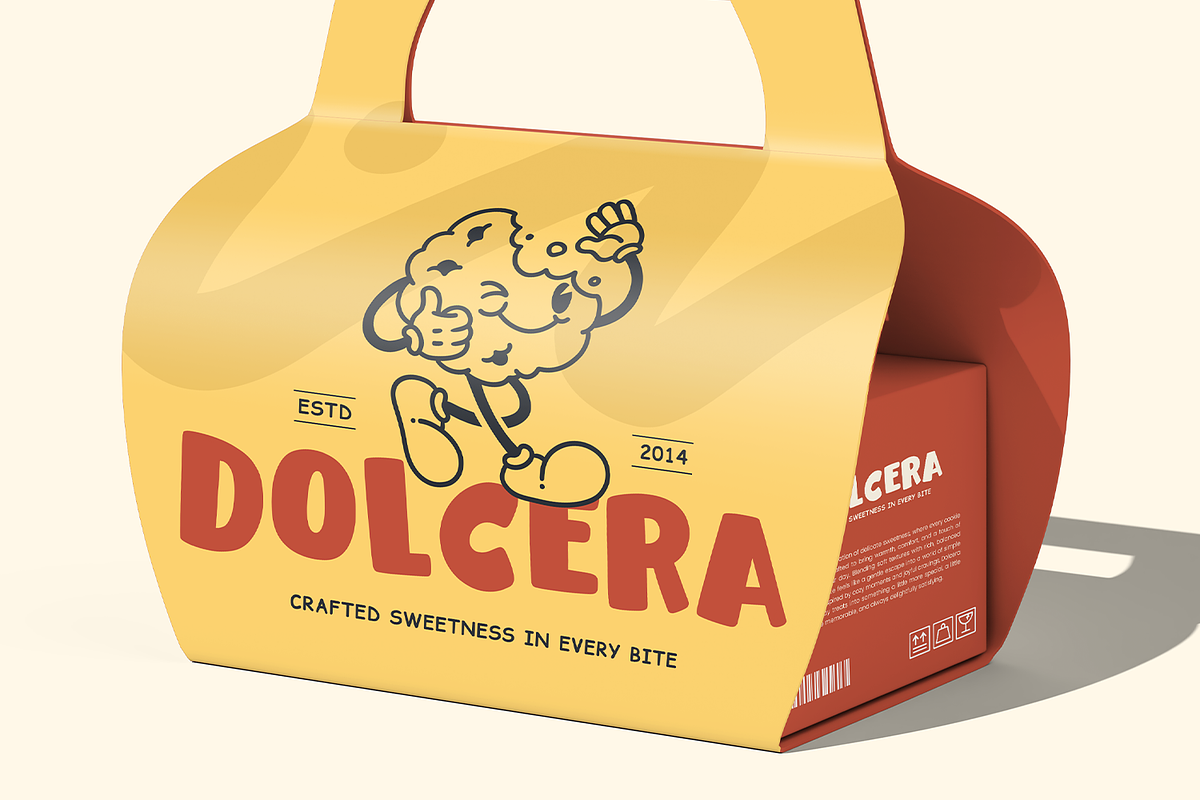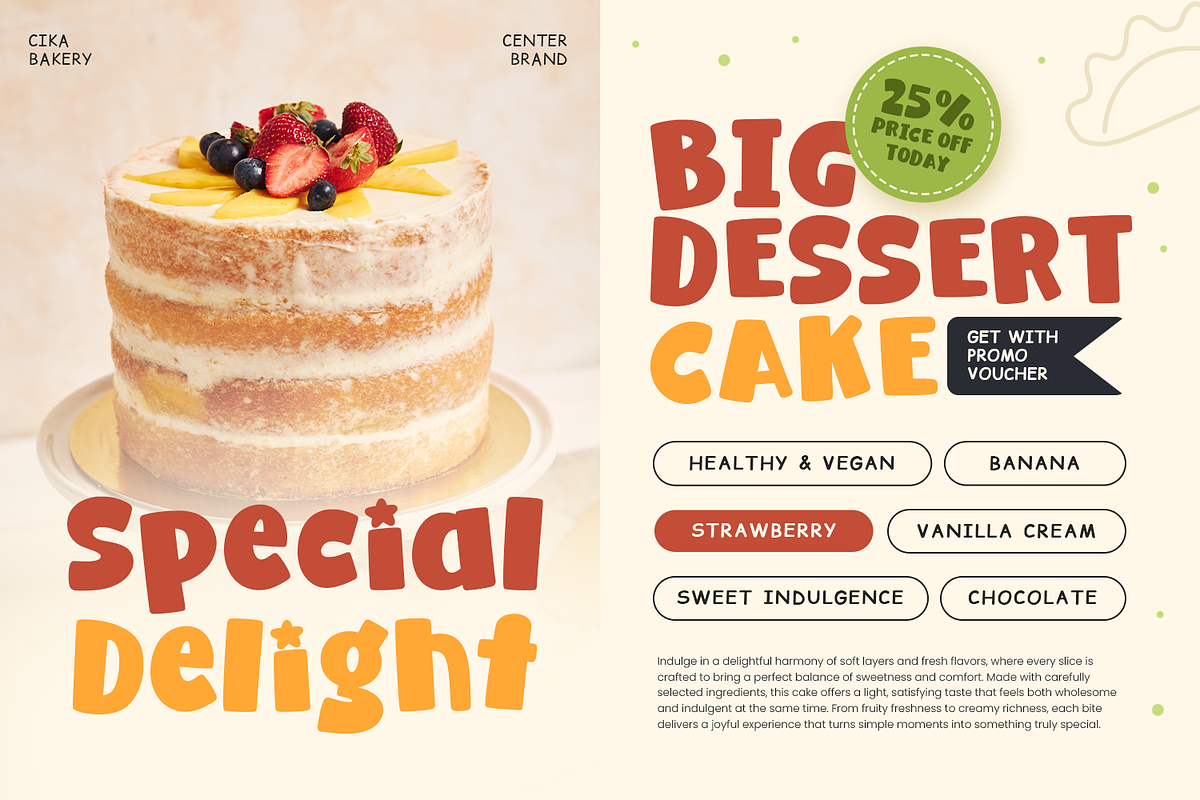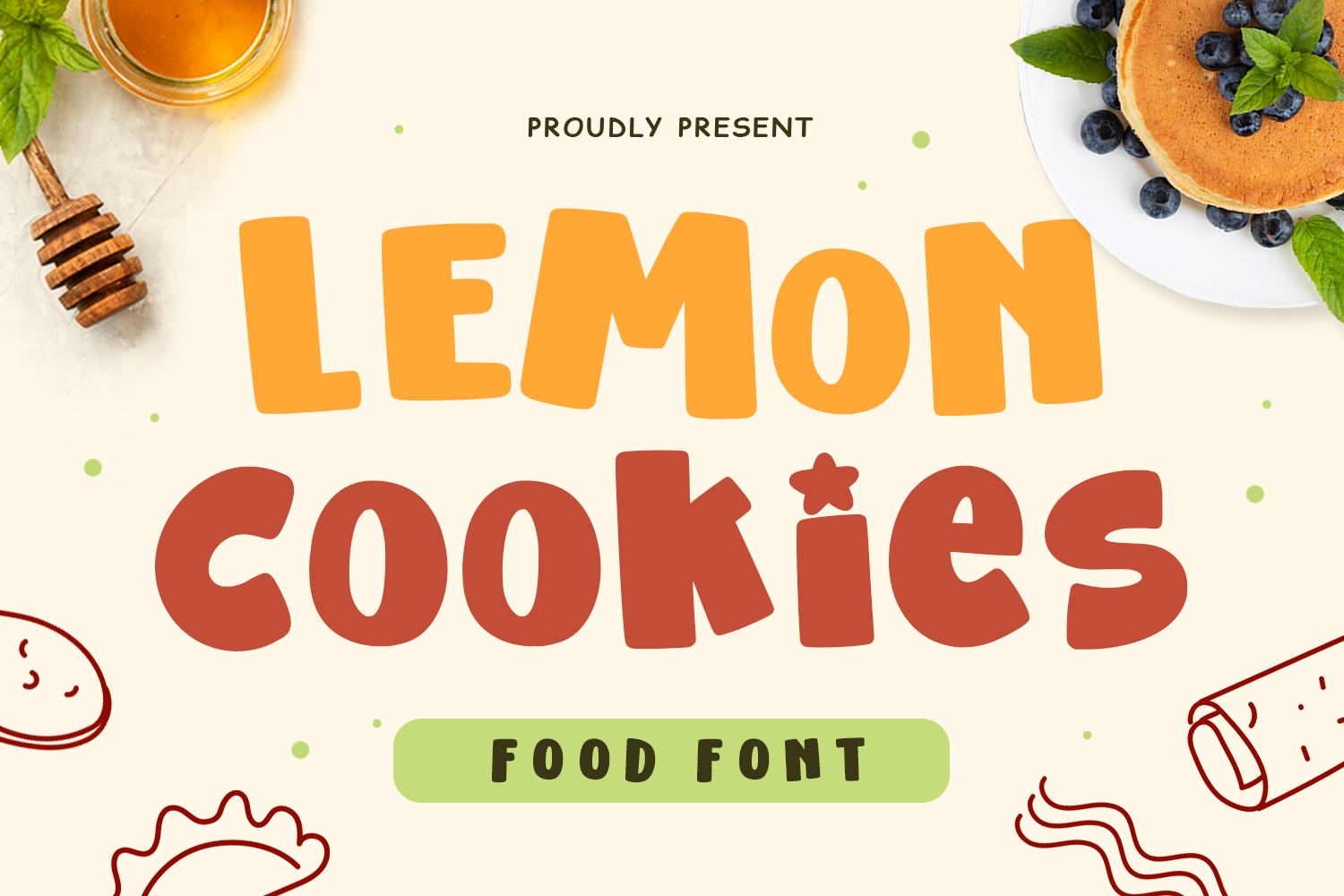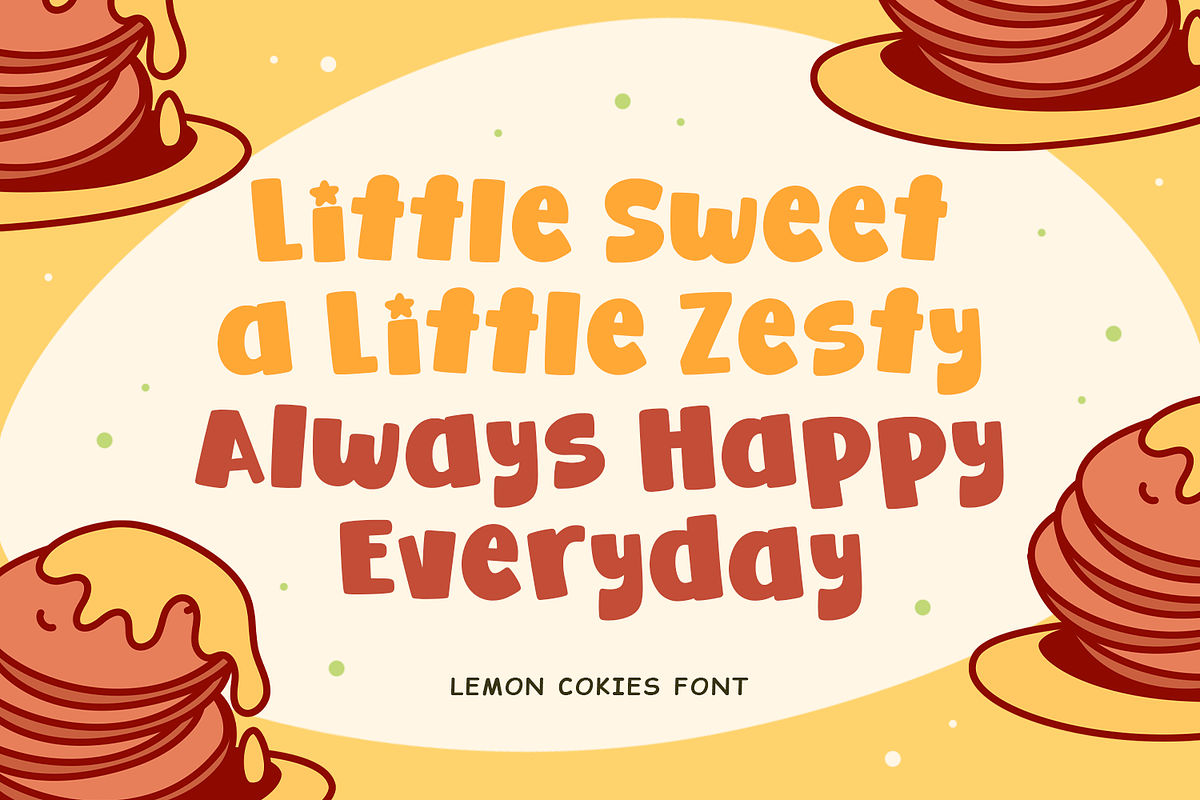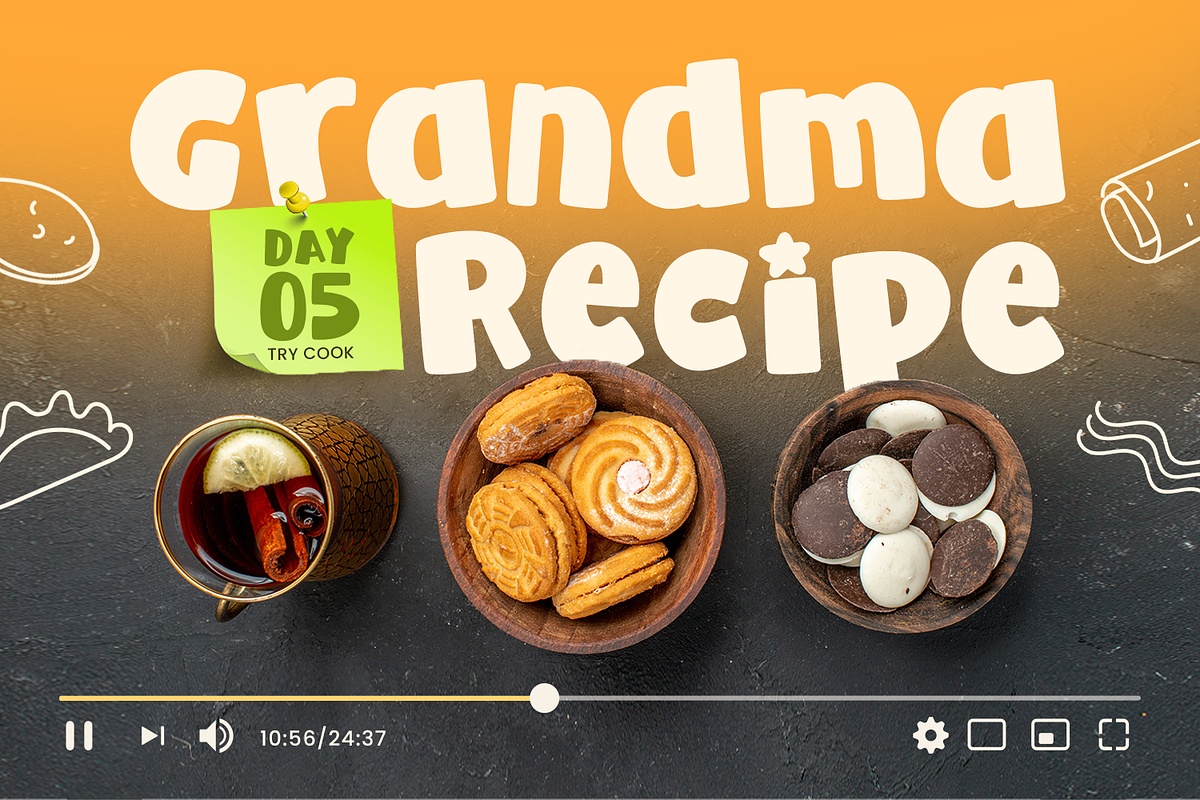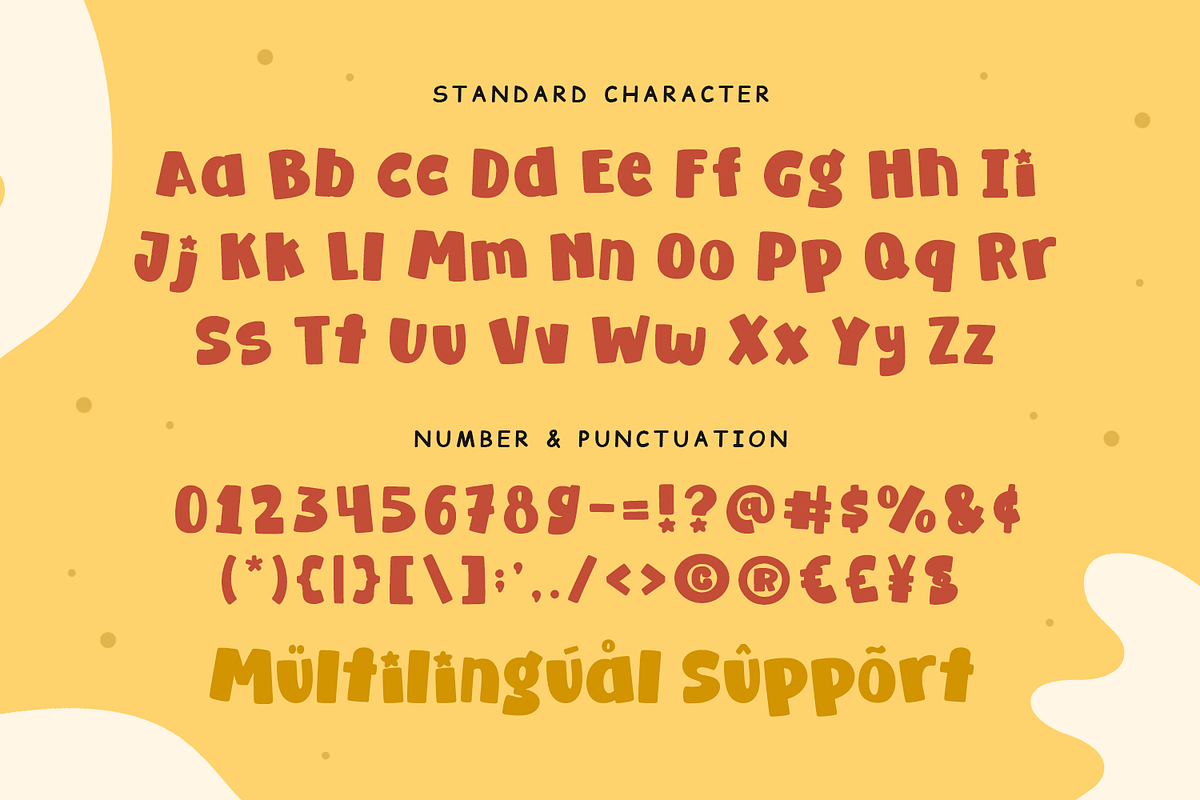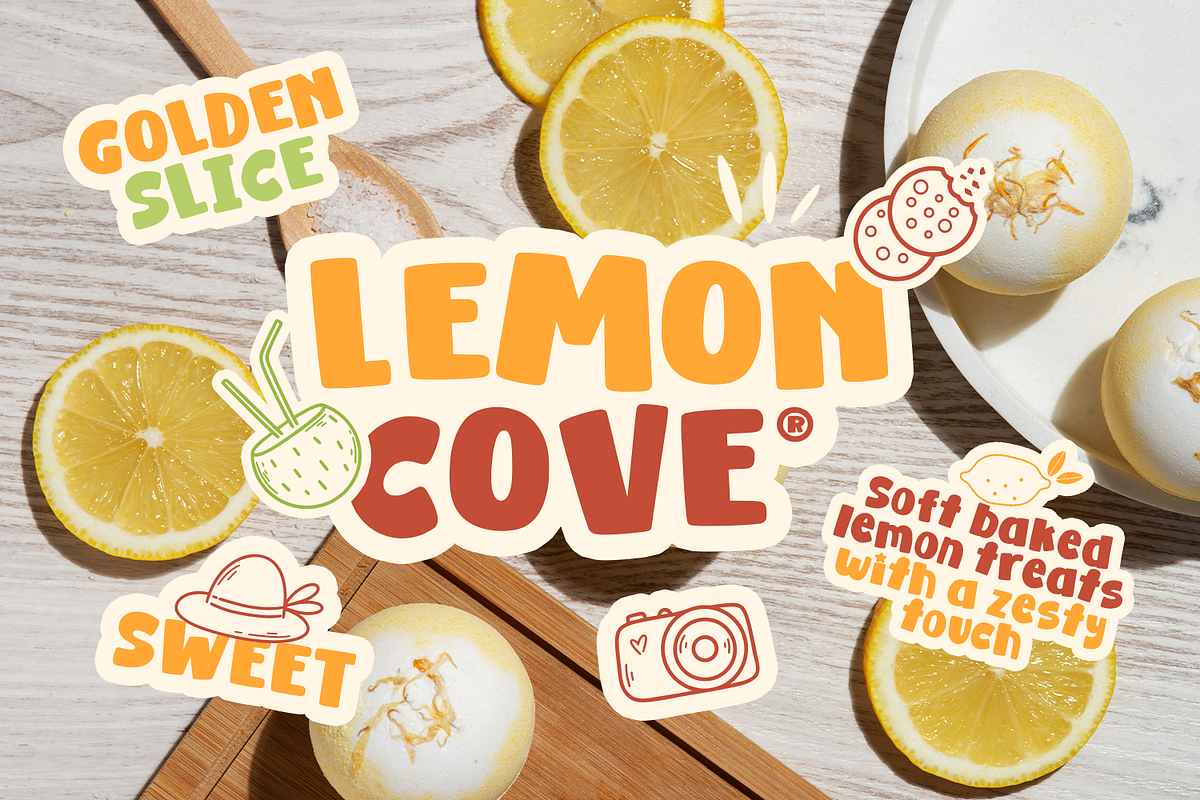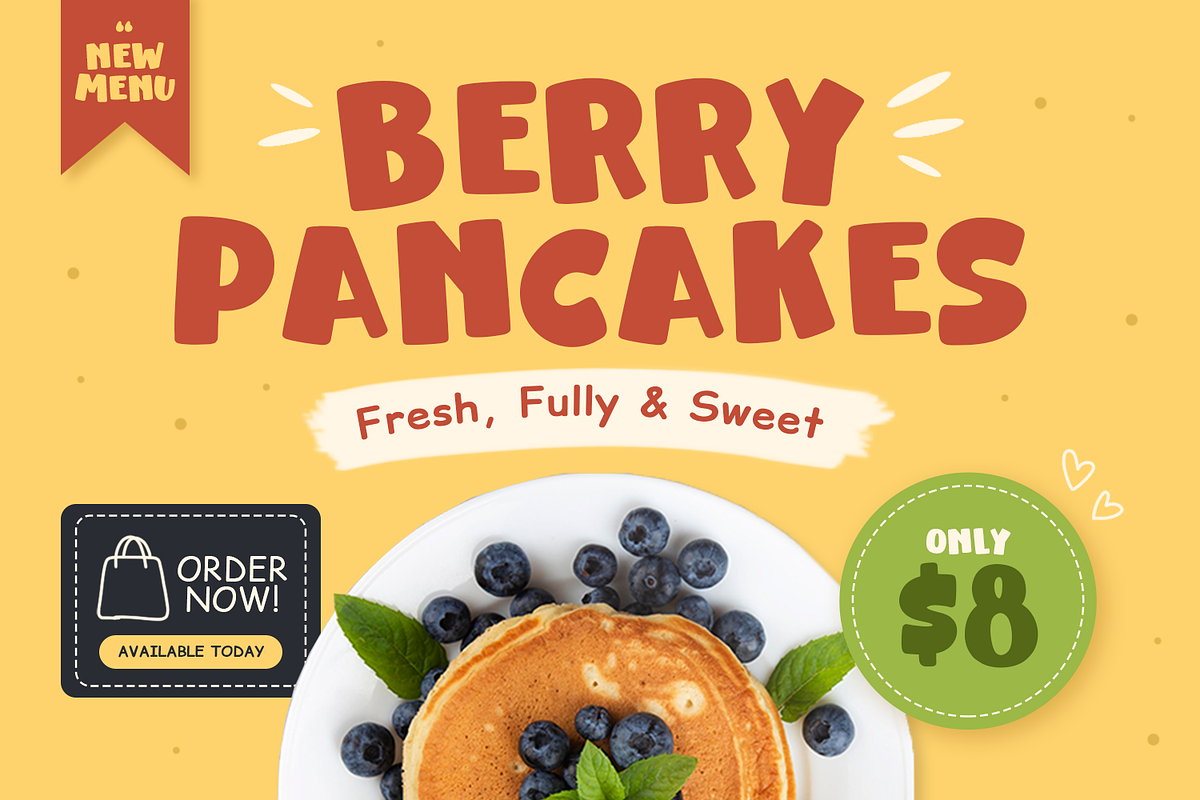
Lemon Cookies - Food Font
Lemon Cookies – Cute Playful Font
Lemon Cookies is a cute, playful display font designed to bring sweetness and joy into your food-themed designs. With its soft curves, rounded shapes, and cheerful letterforms, this font delivers a fun and appetizing visual style that instantly captures attention.
Created במיוחד for food and dessert branding, Lemon Cookies adds a warm and friendly personality to every layout. Its playful structure makes it perfect for designs that need to feel lighthearted, colorful, and inviting, while still maintaining clear readability.
This font works beautifully across a wide range of applications, including bakery logos, café menus, snack packaging, dessert labels, and promotional graphics. Whether you're designing for a cookie brand, candy shop, or kids-friendly food products, Lemon Cookies brings a delightful and charming touch.
Lemon Cookies also shines in creative and craft projects, such as stickers, greeting cards, DIY labels, and Cricut or Silhouette designs. Its bold and rounded display style ensures your text remains visible and engaging across both print and digital media.
With its fun and expressive personality, Lemon Cookies helps create designs that feel happy, sweet, and memorable—perfect for brands that want to connect with their audience in a playful way.
Cute Playful Display Font
Fun and cheerful letterforms with a soft, rounded style.
Food-Themed Typography
Perfect for desserts, snacks, and culinary branding.
Bold & Readable
Designed for clear visibility in display use.
Friendly & Inviting Style
Creates a warm and approachable visual tone.
Versatile Usage
Suitable for both digital and print designs.
Extended characters for global design use.
• Bakery & Café Logos
• Cookie & Dessert Branding
• Food Packaging & Labels
• Menu Design
• Stickers & Merchandise
• Greeting Cards
• Kids-Friendly Designs
• Craft & DIY Projects
Make Your Designs Sweet and Fun
If you're looking for a font that brings cute, playful energy and delicious charm, Lemon Cookies is the perfect choice. Its friendly style makes every design feel more engaging, colorful, and full of personality.